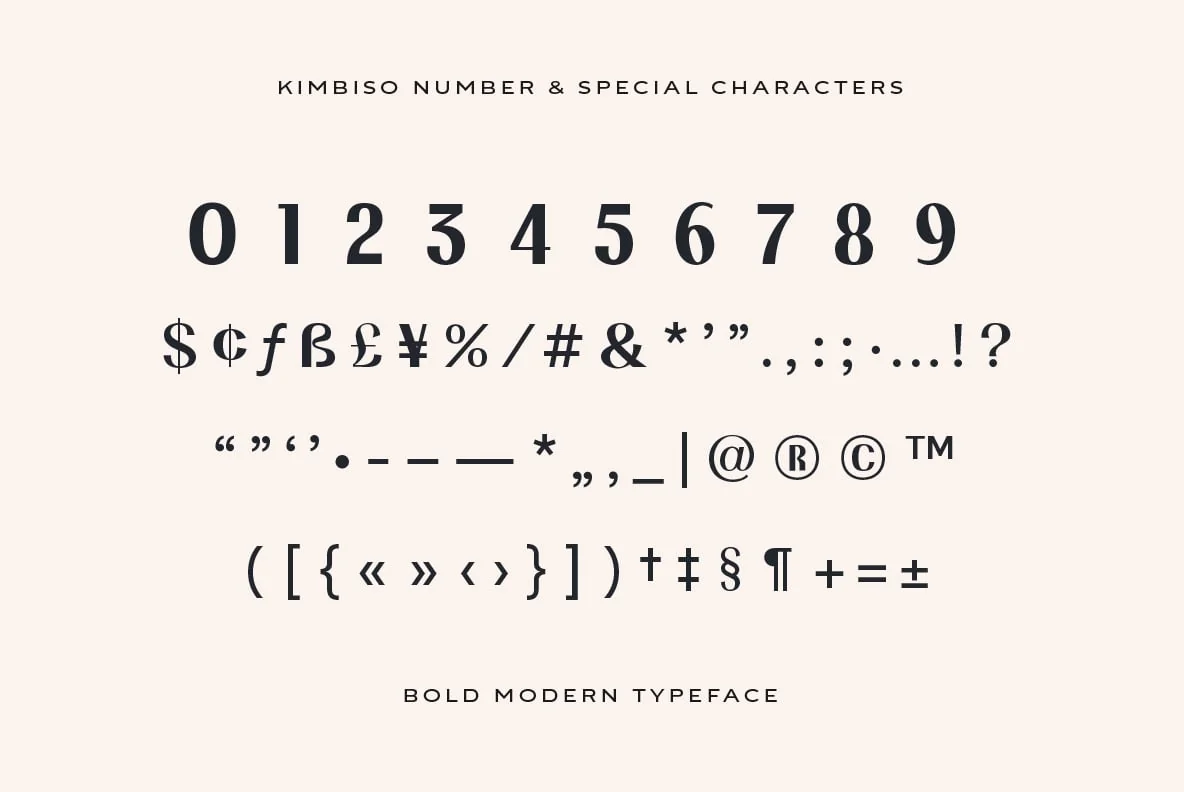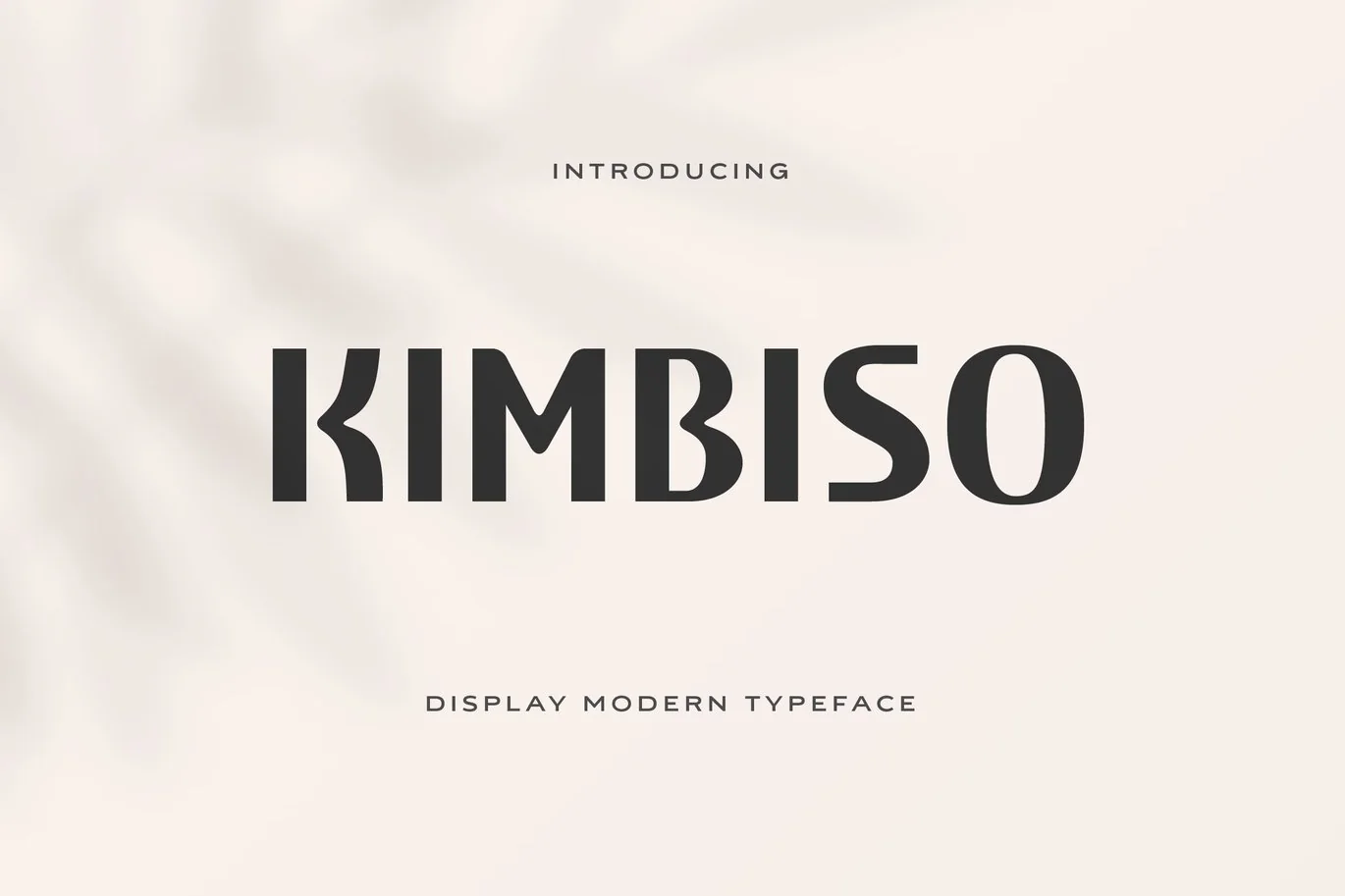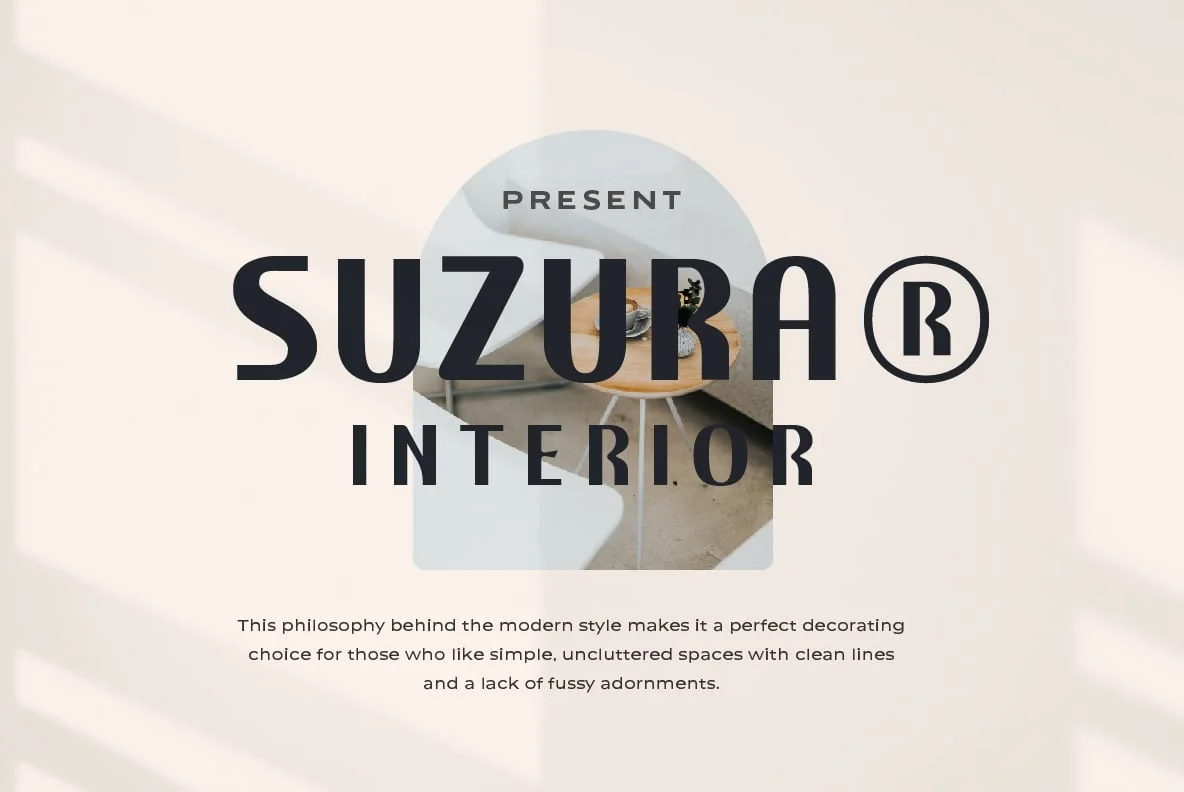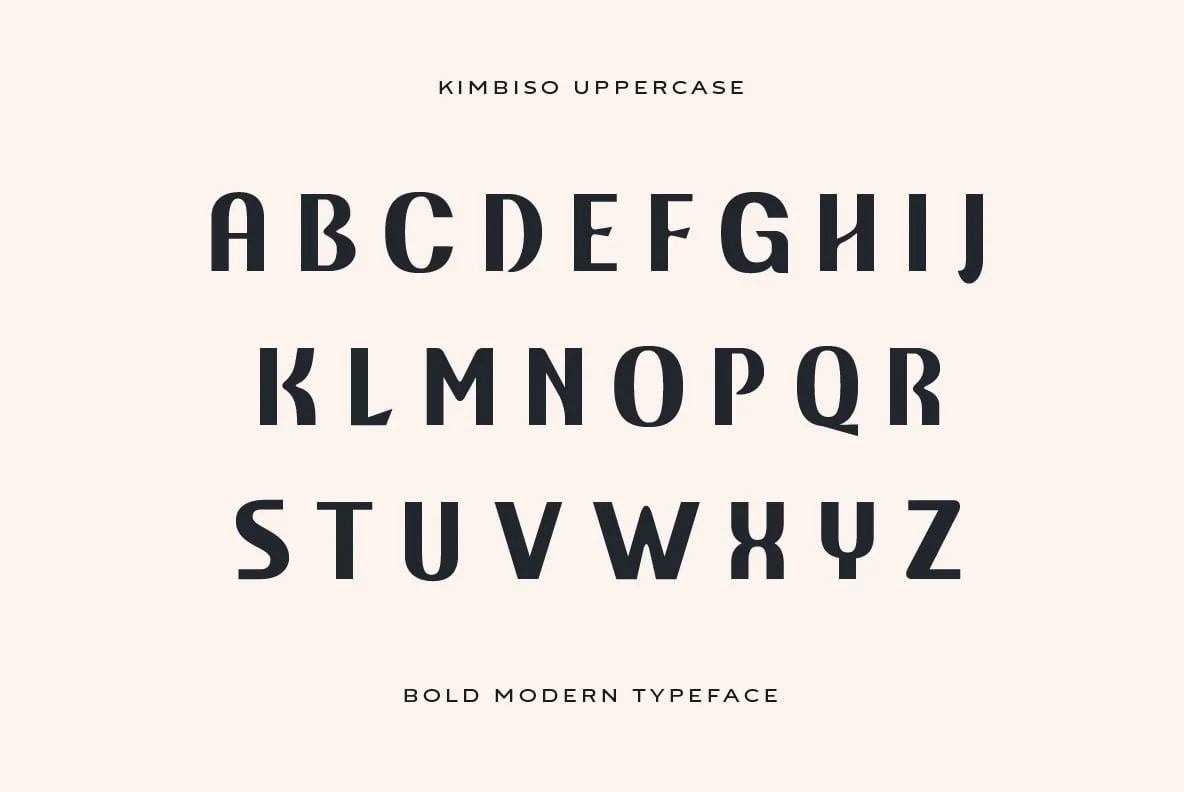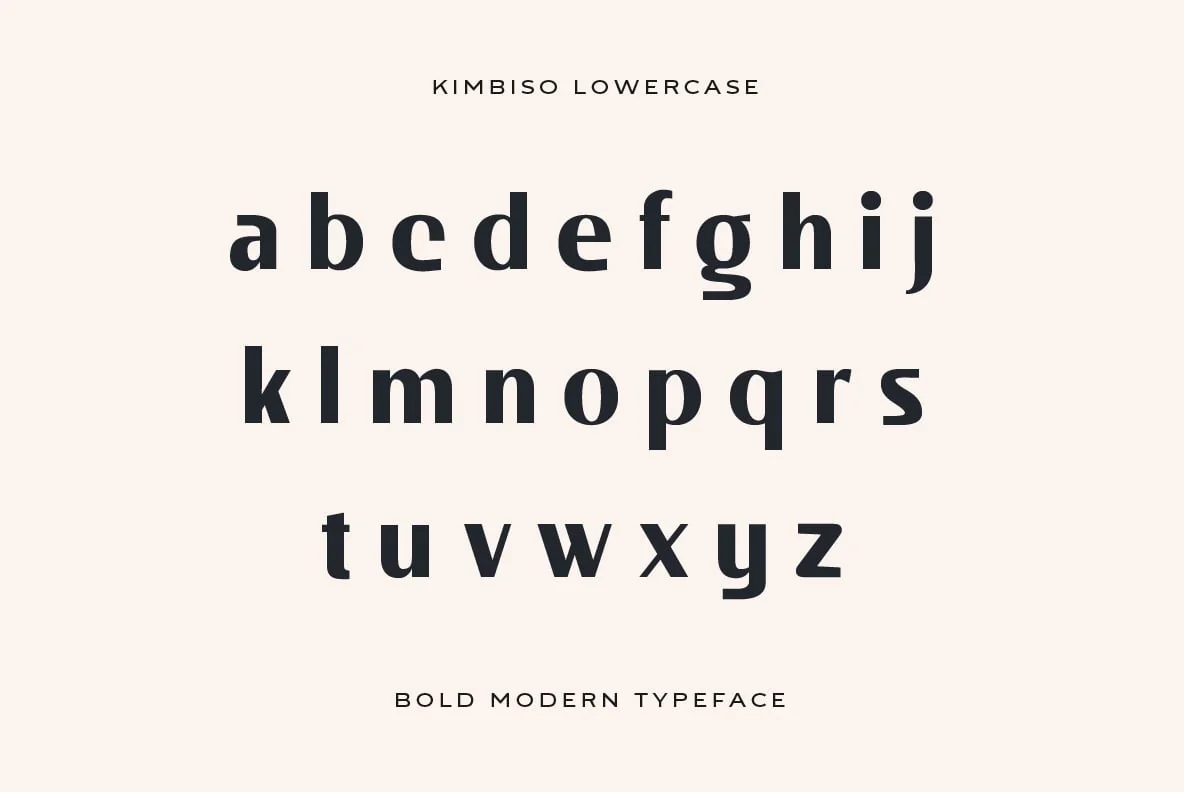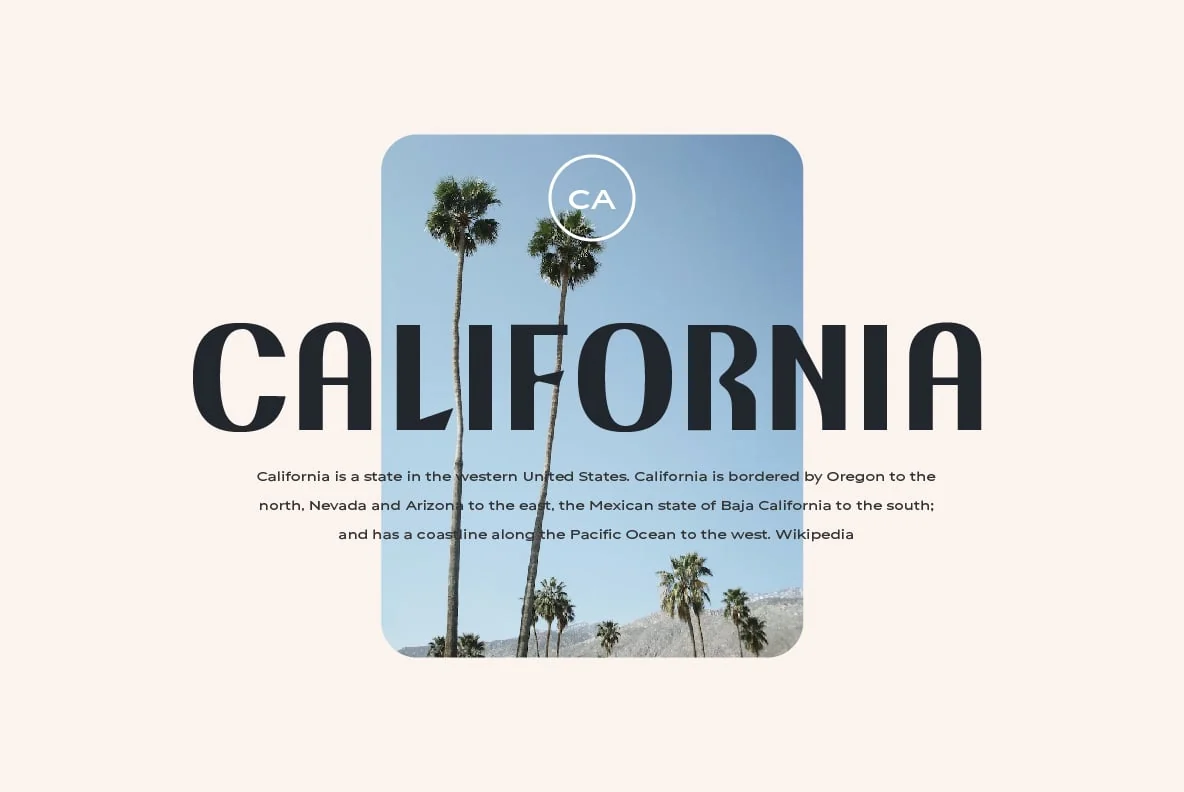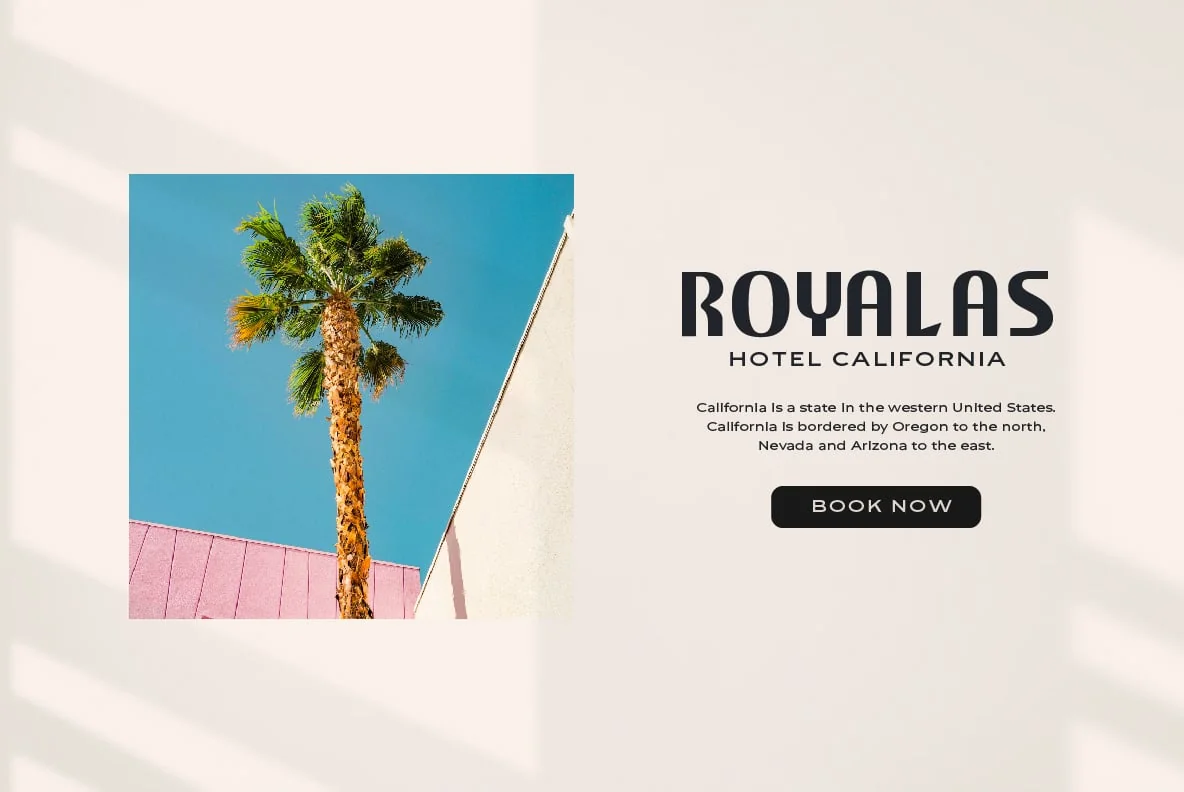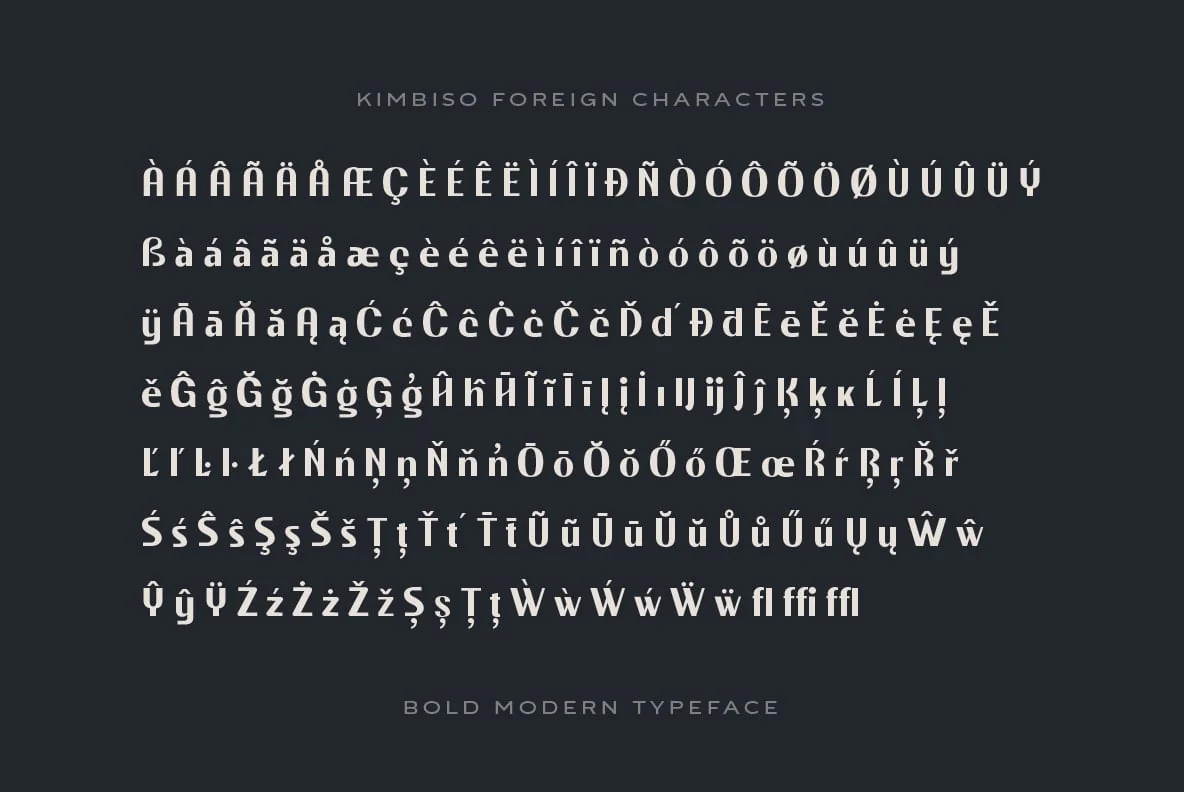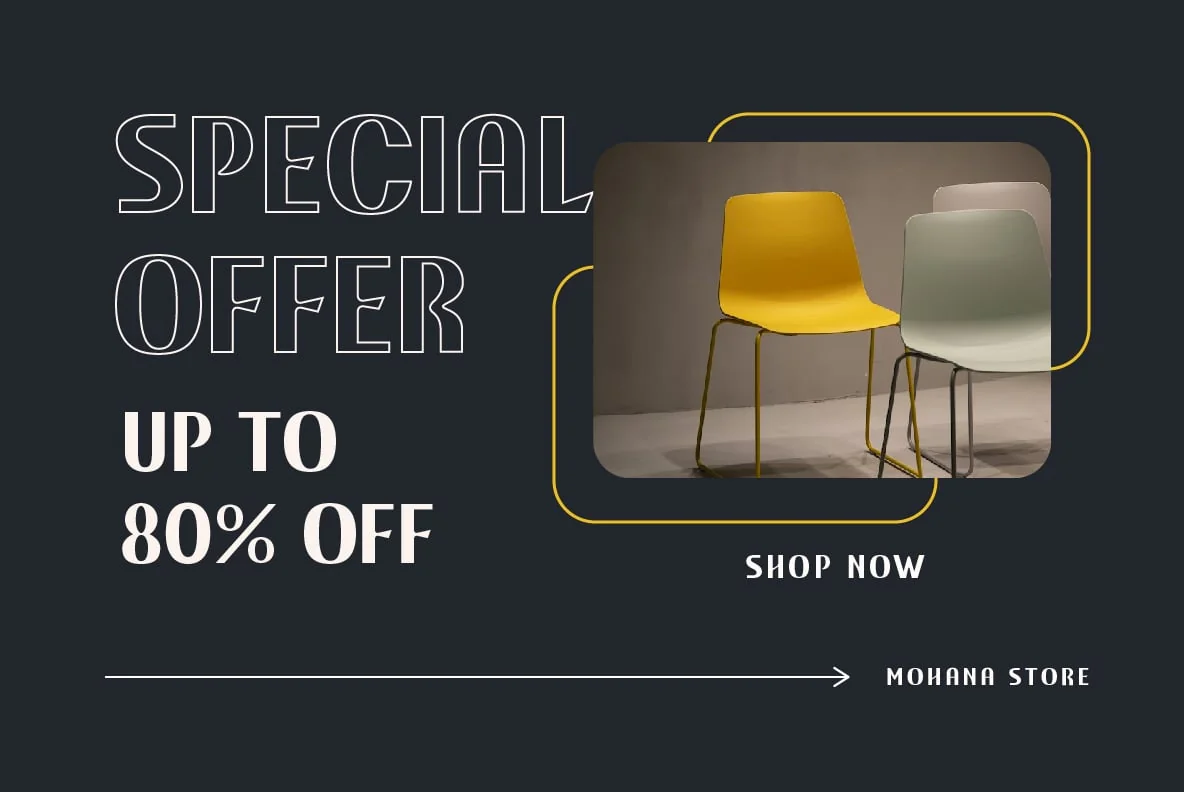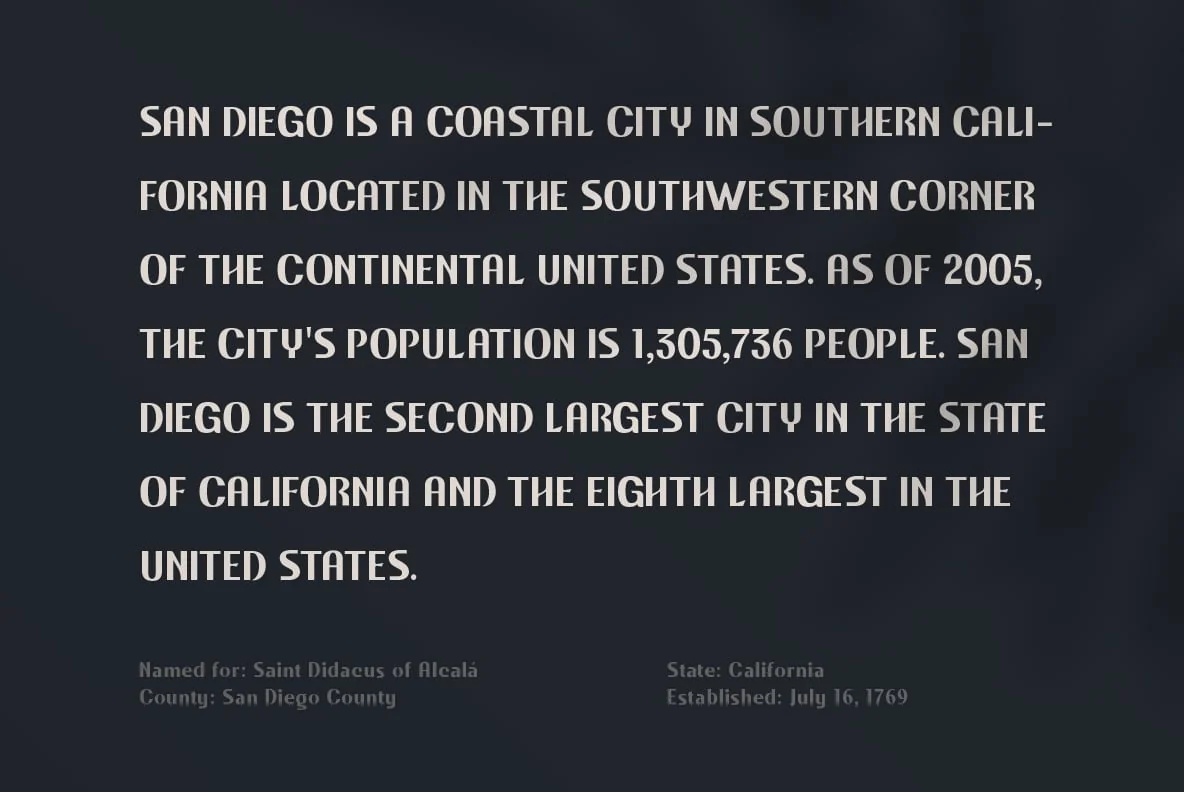
Kimbiso Modern Display Font
Kimbiso is one of the most advanced fonts on the market. Its clean lines and ultra-modern style make it perfect for high fashion branding, cinematic videos, social media posts, and more. Best of all, it’s easy to read and looks sophisticated and stylish.
- Modern Sans is one font you need
- Multilingual support and complete characters set
- Multilingual support in this modern sans serif font
- Well known for its exceptional readability